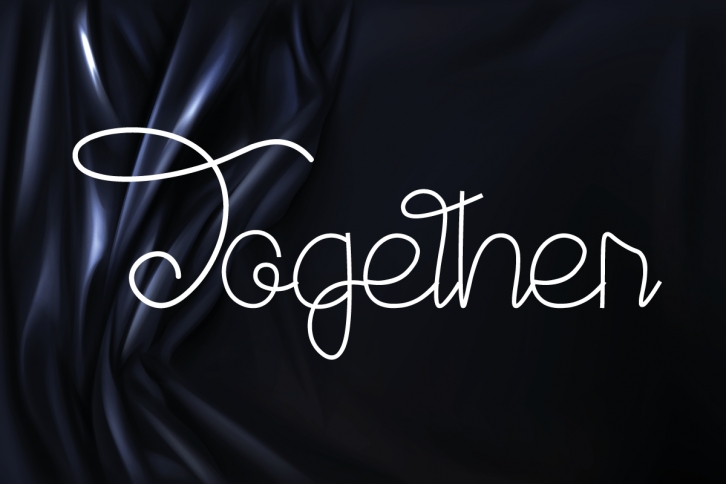
Together is a fun and friendly handwritten font. This typeface is perfect for logos, weddings, invitations, quotes, advertisements, print, magazines, and more! It’s designed to be rounded and a bit clunky and it will make your work stand out and look even more interesting.